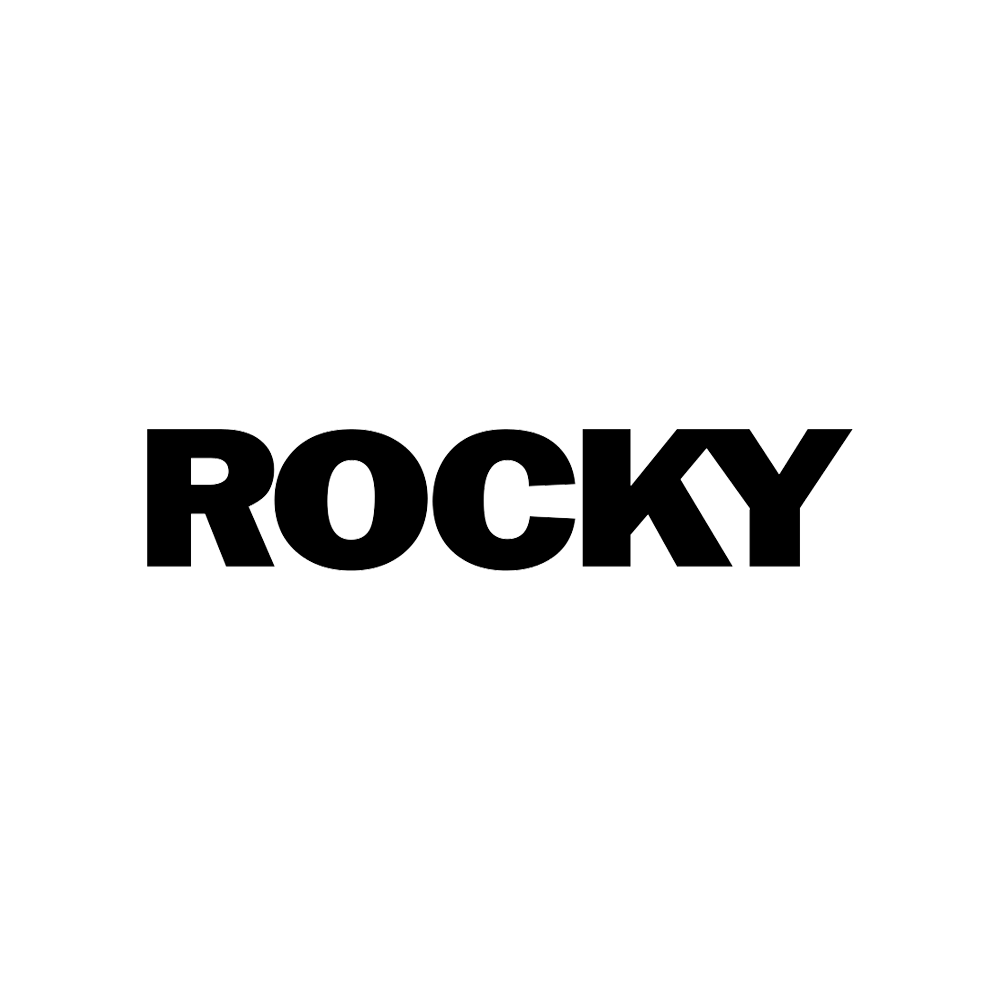
Rocky Font
Fonts in UseRocky is a classic sports drama film released in 1976, directed by John G. Avildsen. It follows the inspiring journey of Rocky Balboa, an underdog boxer who gets a shot at the heavyweight title and proves that determination and heart can overcome any obstacle.
The movie's title was written in a bold, black typeface that closely resembled the lettering of Franklin Gothic, a font created by Morris Fuller Benton. This commercial font can be acquired for use here.